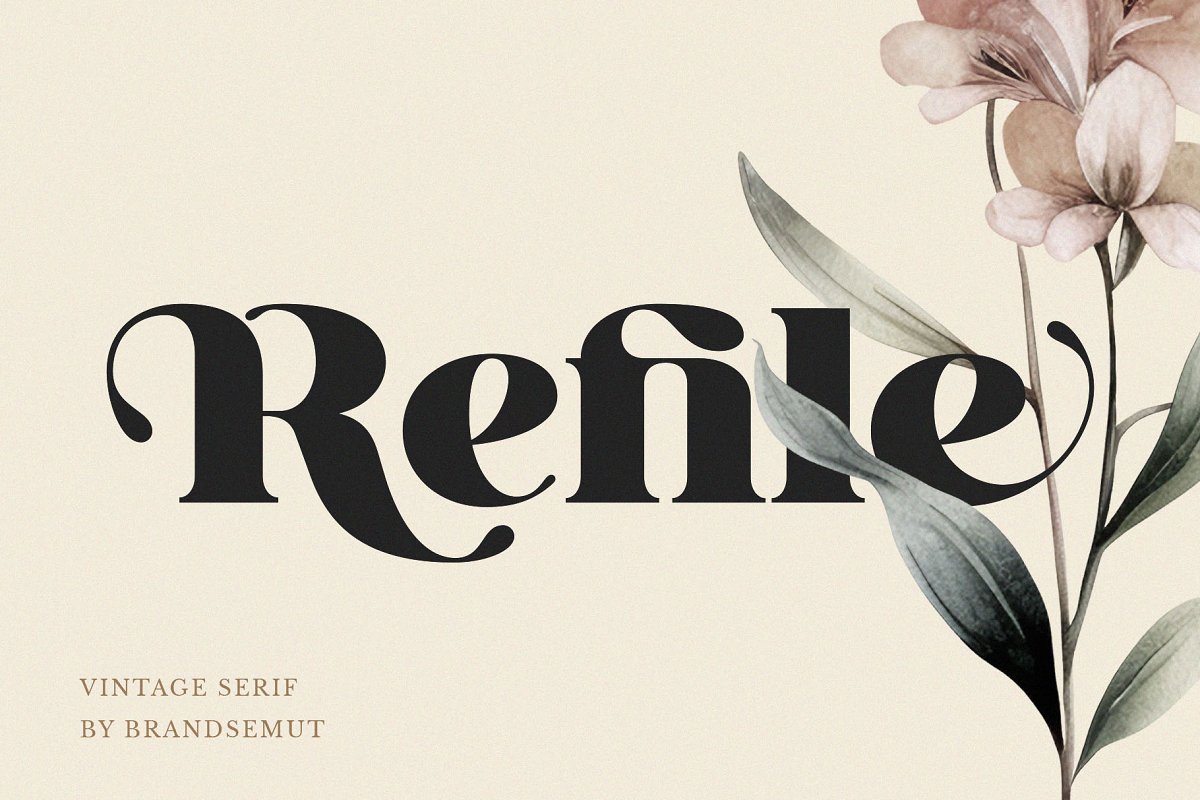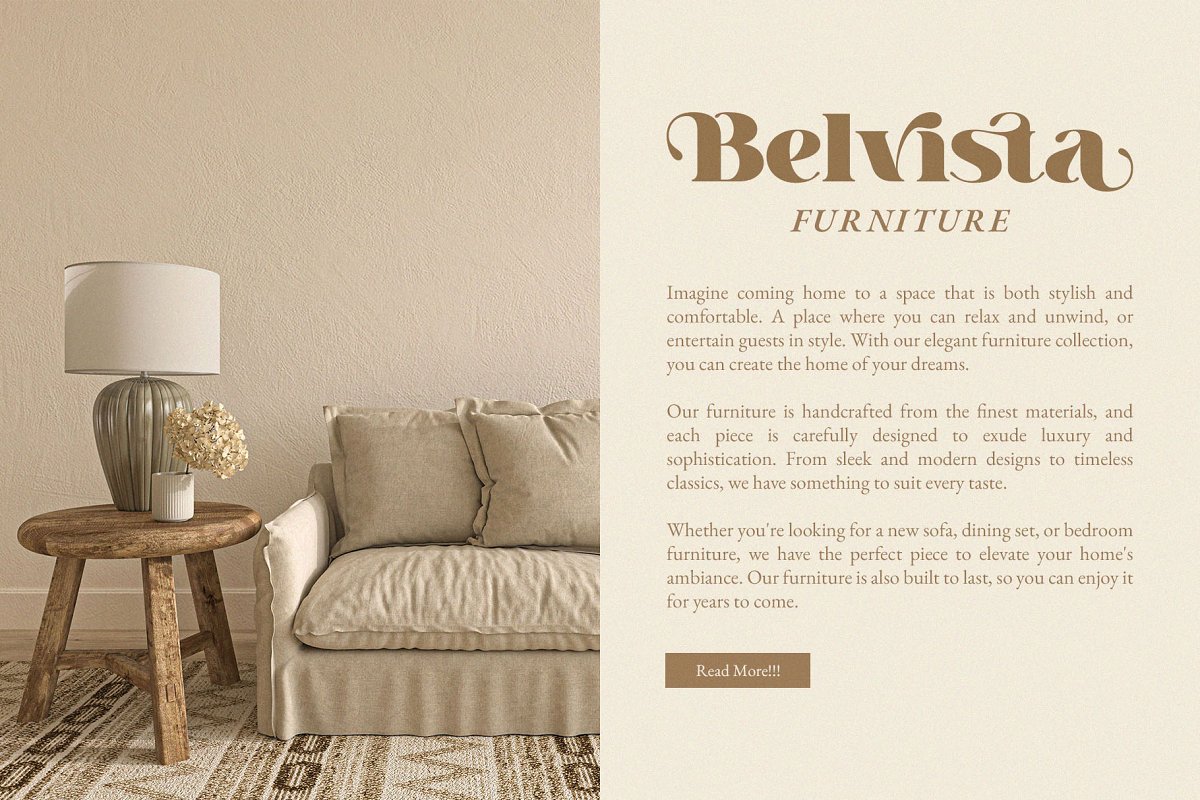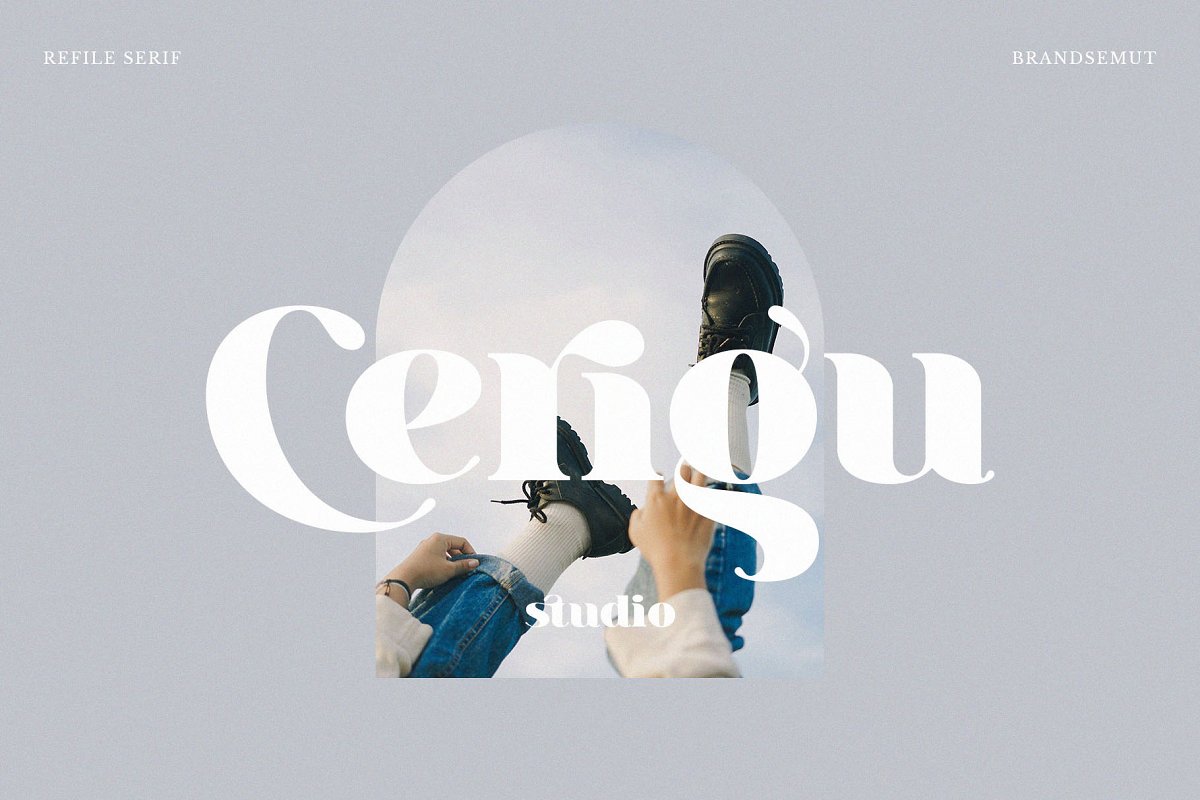
About the Refile || Vintage Display Serif
Introducing Refile Vintage Display Serif, Refile is a vintage and modern display serif, best used as a display for headings, logos, branding, magazines, product packaging and invitations, Refile equipped with Ligature and many Alternates and come with clean lines and smooth curves give any project an extra touch of class, What you get:Refile OTFRefile TTFRefile WOFFIf there’s anything else you are unsure of feel free to pop me a message 🙂 That’s it! Have fun using Refile font!!!Feel free to follow, like and share